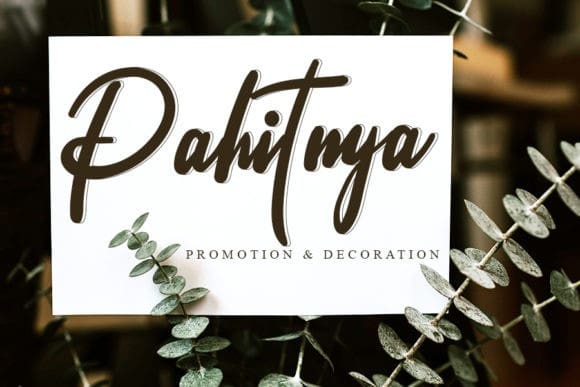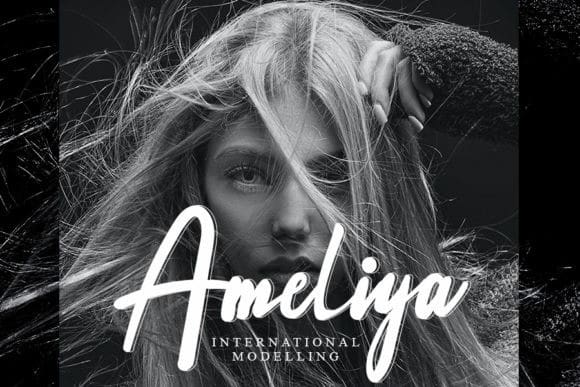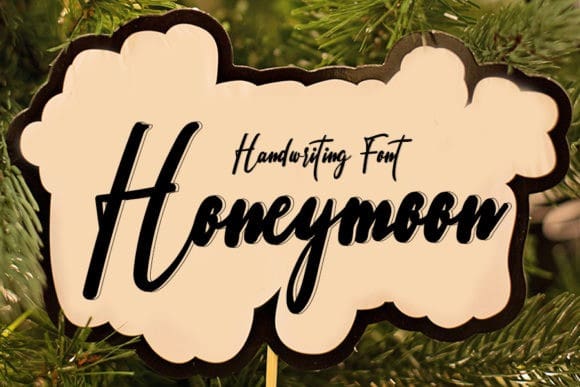
Honeymoom Script Font
Honeymoom Script Font is an stylish handwritten font, beautifully designed to become a true favorite. It maintains its classy calligraphic influences while feeling contemporary and fresh. Fall in love with it and bring your projects to the highest levels!